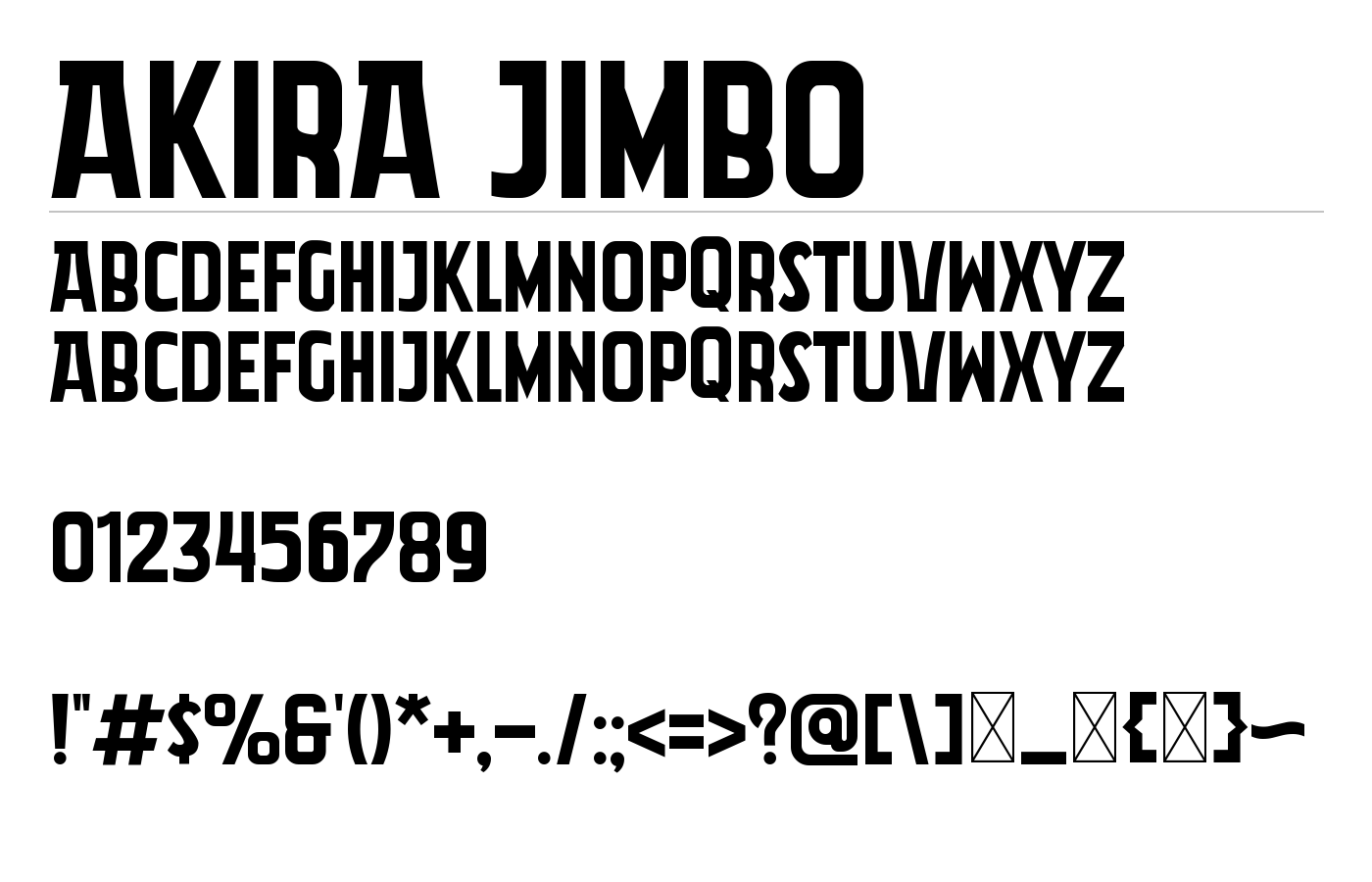
Akira Jimbo is a bold, condensed sans serif font with a strong, modern presence characterized by its tall, narrow letterforms and high stroke contrast. Its sharp, geometric shapes and uniform spacing give it a confident, impactful style ideal for headlines, branding, and designs that require a sleek, contemporary edge. This font works especially well in fashion, editorial, and display settings where a powerful and stylish statement is needed.
Akira Jimbo Font
About Akira Jimbo Font